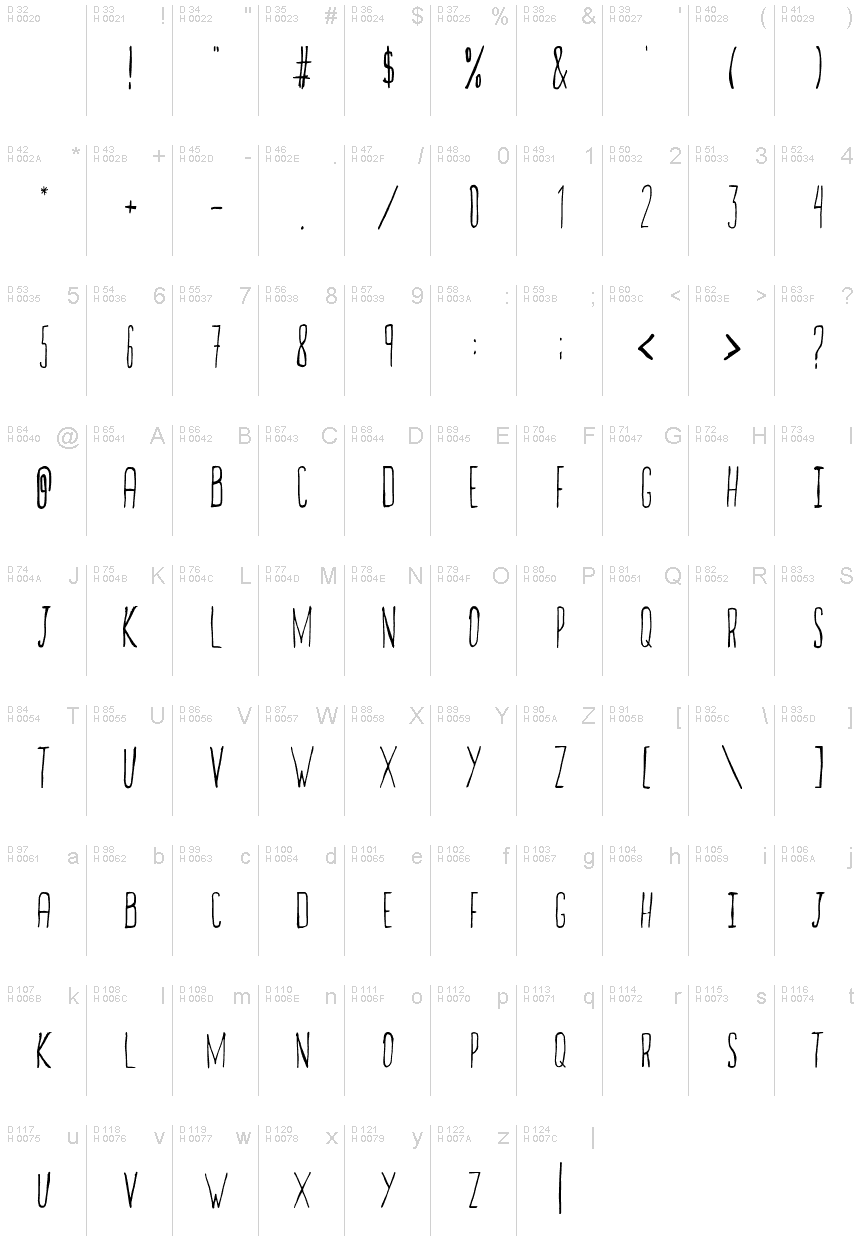
OddityFull
Oddity Full font is a condensed script font designed by Eric Mills.
A Font that's just a little odd! This is the first typeface I've ever made from start to finish so I'm giving it away for personal and commercial use! Enjoy!